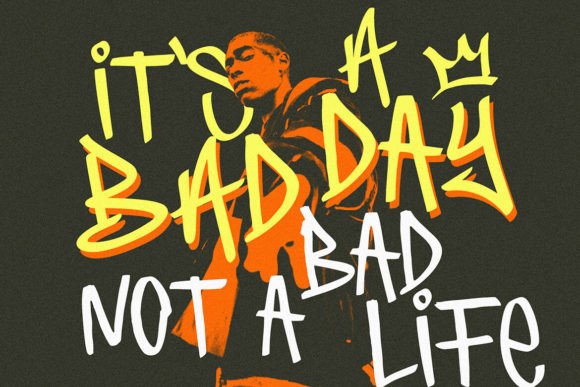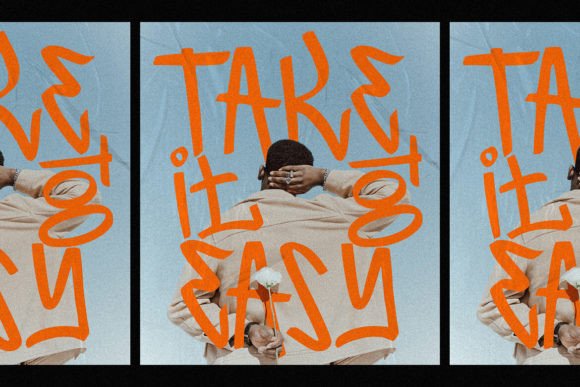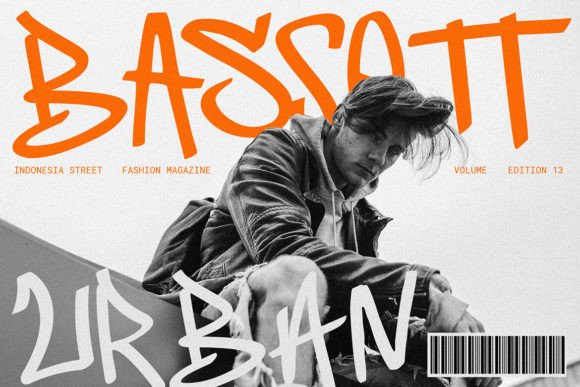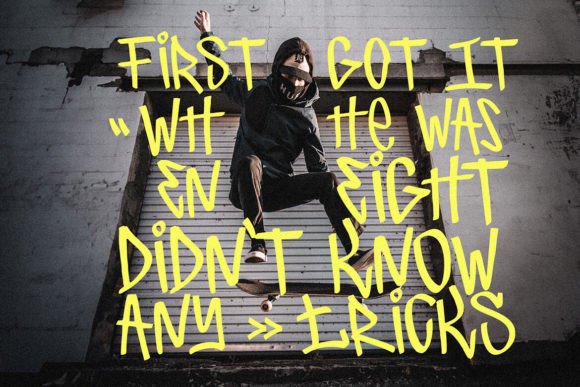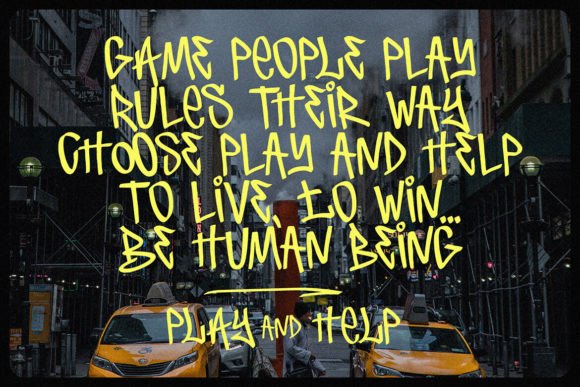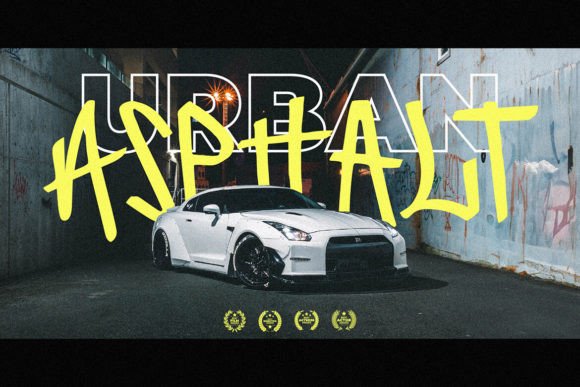
Introduction to Moresign Font
Have you ever been working on a creative project, pouring your heart and soul into a design, only to feel like something’s missing? That’s where the right font can make all the difference. As a designer, you know that the perfect font can elevate your work and give it that extra oomph. That’s why we’re excited to introduce you to Moresign Font – a bold, readable, and versatile font that’s perfect for making a statement.
With its urban lifestyle inspiration and high-quality design, Moresign Font is a valuable resource for designers looking to add some edge to their work. Whether you’re working on a street art design, creating a logo, or packaging a product, Moresign Font is the perfect addition to your design arsenal. And the best part? It’s available for free download, making it an accessible and transparent background for your creative projects.
What sets Moresign Font apart is its attention to detail – with alternate glyphs and multilingual Latin accents, it’s the perfect font for designers who want to add a touch of sophistication to their work. Whether you’re working on a high-end branding project or a fun magazine design, Moresign Font is the perfect design resource to help you make a lasting impression.
Key Features of Moresign Font
- Unique, modern font styles that can elevate any design project, from branding to digital art.
- Supports a wide range of languages, making it an excellent choice for international creative projects.
Honest Review: Moresign Font
As a designer, I’m always on the lookout for high-quality design resources to elevate my creative projects. Recently, I had the chance to try out the Moresign Font, and I must say, it’s been a game-changer.
- ✨ High-quality design with a unique aesthetic that sets it apart from other fonts.
- ⚠️ The font doesn’t come with a transparent background option, which can be a bit restrictive for designers who need more flexibility.
- ⚠️ The font family is relatively small, which can make it difficult to find the perfect font for a specific design.
Overall, I’m thoroughly impressed with the Moresign Font. While it may have a few limitations, its high quality and unique aesthetic make it a valuable addition to any design resource library. If you’re looking for a font to elevate your creative projects, I highly recommend giving it a try.
Common Use Cases for Moresign Font
The Moresign Font is perfect for various creative projects, including graphic design, digital art, and typography-based designs. Its high-quality features make it ideal for printing and digital applications.